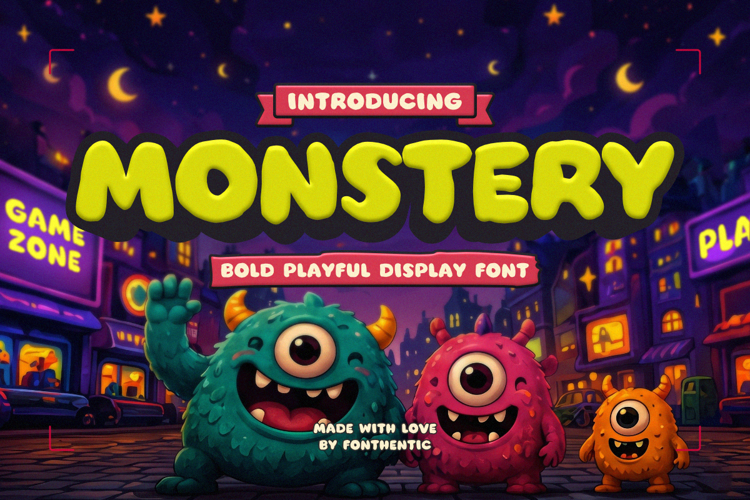
Monstery Font
Outline Style
Monstery is a bold display typeface that transforms letterforms into playful character-like shapes. Built with thick rounded strokes, soft edges, and inflated proportions, it captures the charm of cartoon monsters while maintaining excellent readability for large-format typography.